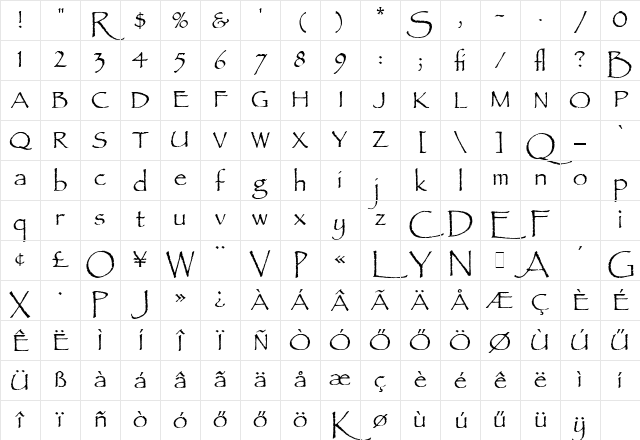
Complete Hu_Papyrus Plain glyph index. Displaying only characters natively supported by Hu_Papyrus Plain font.
Hu_Papyrus is a composed and adaptable typeface that performs quietly and consistently across a wide range of design contexts.